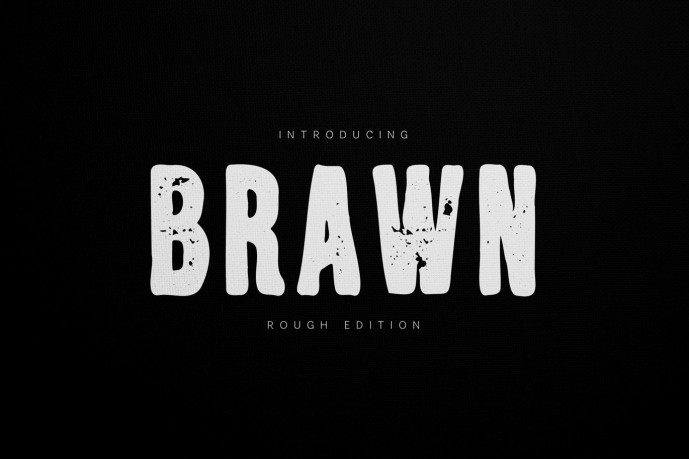
Brawn Font
Designer: VPcreativeshop
Brawn Font is a powerful, raw sans-serif typeface designed for bold communication and visual impact. With its aged texture and solid letters, Brawn offers a strong, authentic look that’s perfect for posters, branding, packaging, album covers, and editorial design.This font balances grunge character with a modern structure, making it ideal for designers seeking expressive typography without sacrificing clarity.Brawn includes full sets of uppercase and lowercase letters, numbers, punctuation marks and extensive support for the Latin language, ready for print and digital projects.